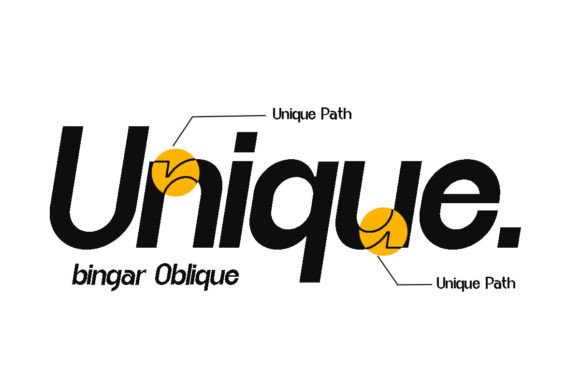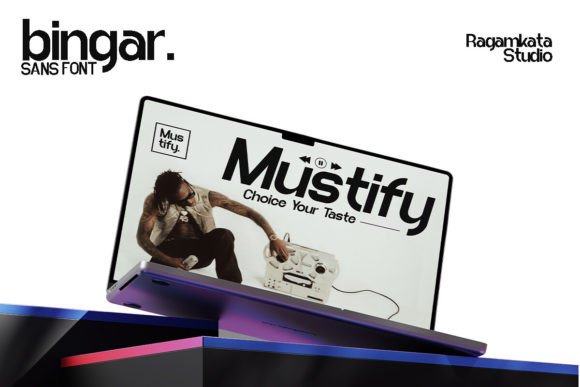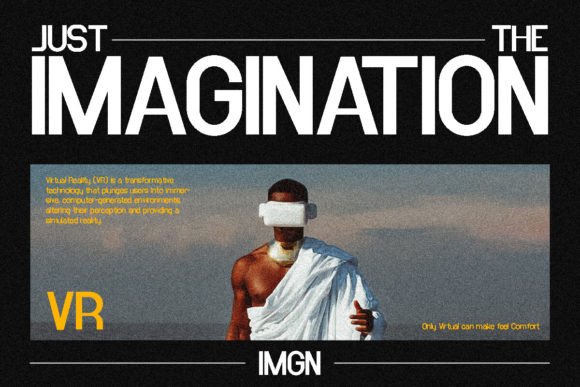
The Perfect Combination of Style and Elegance: Bingar Font
There’s nothing quite like the thrill of finding that perfect font to bring your design project to life. You’ve spent hours poring over options, but none of them seem quite right – until you stumble upon something that makes your heart skip a beat. For designers, this moment is pure magic, and it’s exactly what the Bingar Font aims to deliver.
Bingar Font is a modern sans display font that effortlessly combines smooth curves with a dash of charm and elegance. This versatile font is designed to work seamlessly in both uppercase and lowercase sizes, making it the perfect choice for a wide range of projects. Whether you’re creating eye-catching headings, logos, or branding materials, the Bingar Font is sure to leave a lasting impression.
Bingar Font Key Features
- Font Family: Bingar is a sans-serif font family designed for digital use.
- Unique Characteristics: Bingar features a clean, modern design with a high x-height, making it highly legible at small font sizes.
- Character Set: Bingar includes a comprehensive character set, including Latin, Cyrillic, and Greek alphabets, as well as a range of punctuation and symbol glyphs.
Bingar Font Review
As a designer, I recently had the chance to work with the Bingar font, and I wanted to share my honest review with you.
- The Bingar font has a unique, modern aesthetic that can add a touch of sophistication to any design project.
- The font’s clean lines and minimalist design make it easy to read, even at smaller font sizes.
- The font comes in a variety of weights and styles, giving designers a range of options to choose from.
- The font is highly customizable, allowing designers to adjust the spacing, letter spacing, and more to fit their needs.
- The Bingar font can feel a bit generic at times, lacking the unique character that some other fonts possess.
- The font may not be the best choice for projects that require a lot of italic or cursive text.
- The font’s spacing can feel a bit tight in some cases, making it difficult to read at very small font sizes.
Overall, I think the Bingar font is a solid choice for designers who want a clean, modern look. While it may not be the most exciting font, it’s reliable and easy to work with. I’d recommend it for projects where a neutral, professional aesthetic is desired.
For optimal results, use Bingar Font in headings and titles to create a bold and eye-catching visual effect.
Use it in combination with other fonts to create a unique and stylish typography.
Bingar Font is ideal for use in graphic design, branding, and advertising materials.